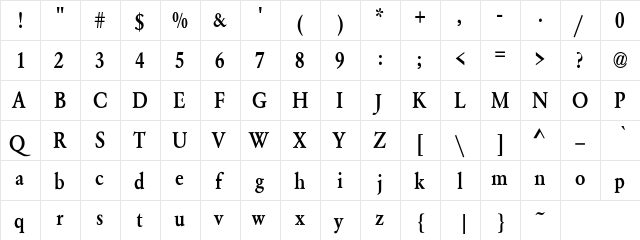
Grendel Medium Condensed Regular
Design Context for Grendel Medium Condensed Typeface
Grendel Medium Condensed offers clean, dependable letterforms without strong stylistic allegiance, making it a practical choice for designers who need flexibility. Its narrow stance lets it pack a punch even in space-constrained designs.